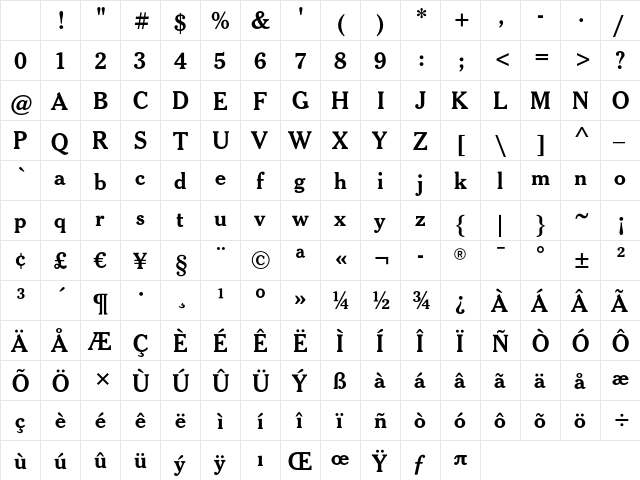
Cheltenham Bold is a composed and adaptable typeface that performs quietly and consistently across a wide range of design contexts. Its bold stroke weight gives it real presence on the page.